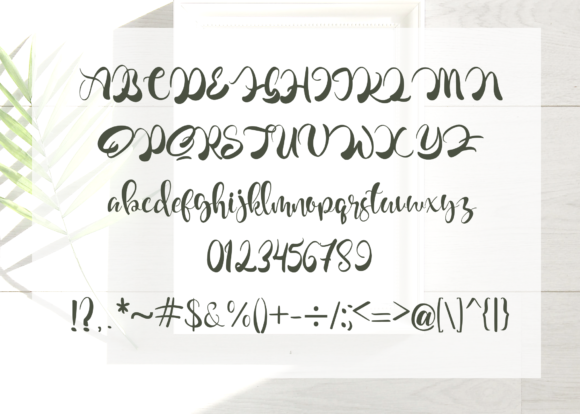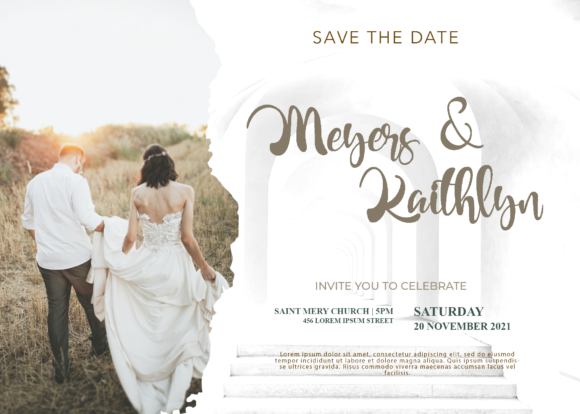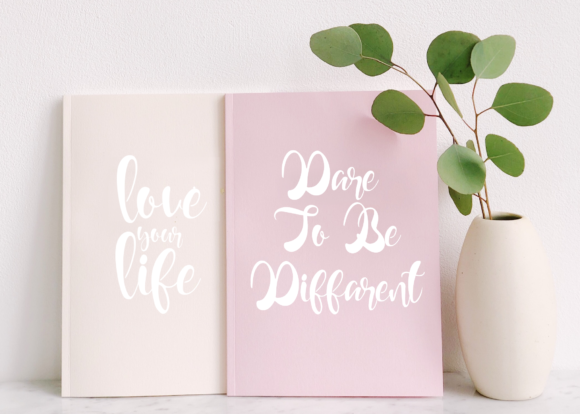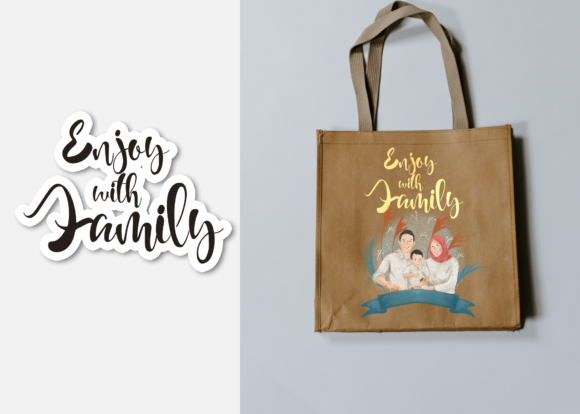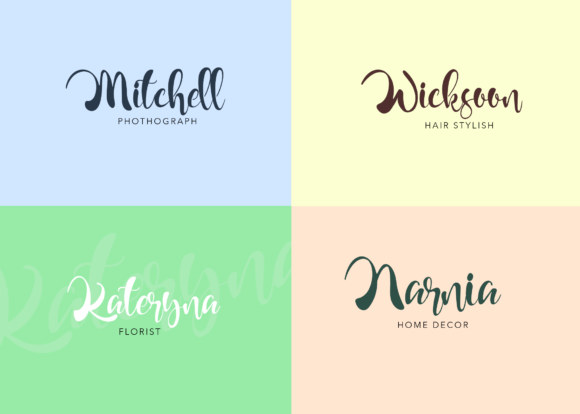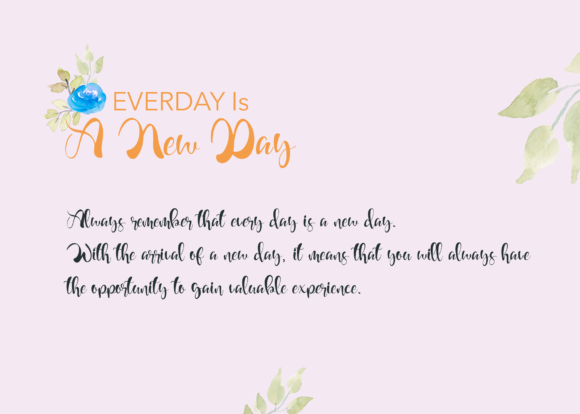
Crailova Font
About Crailova Font
Crailova is a modern script font. Bouncy and fun, this font is guaranteed to make your designs standout. Whether you’re looking for fonts for Instagram or calligraphy scripts for DIY projects, Crailova will turn any creative idea into a true piece of art!